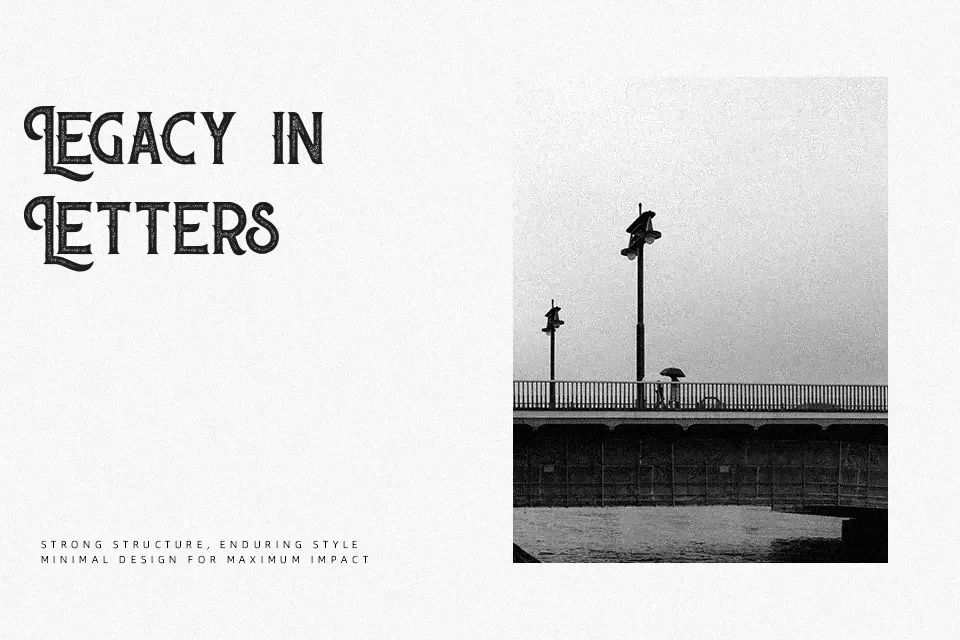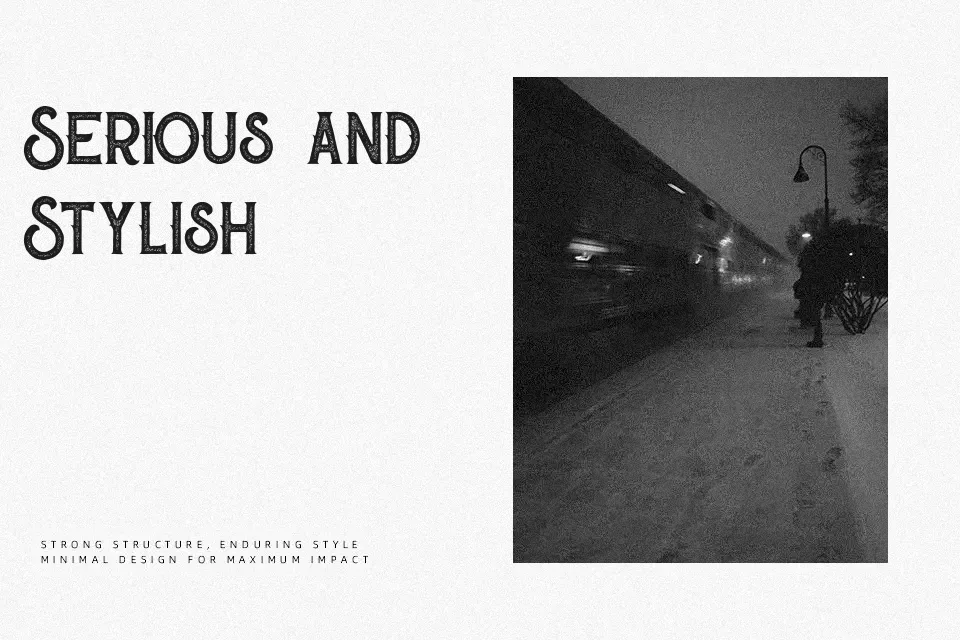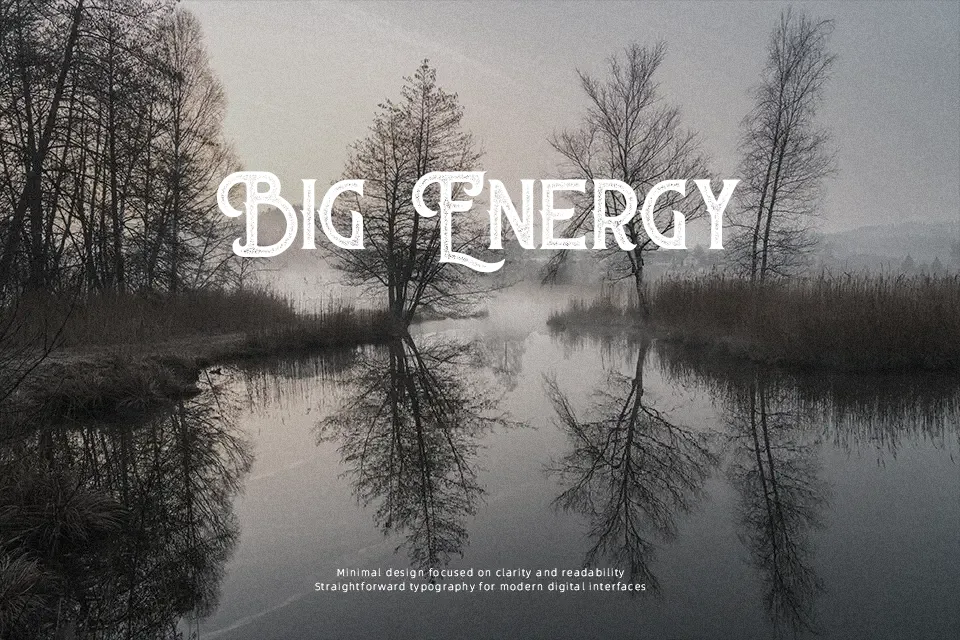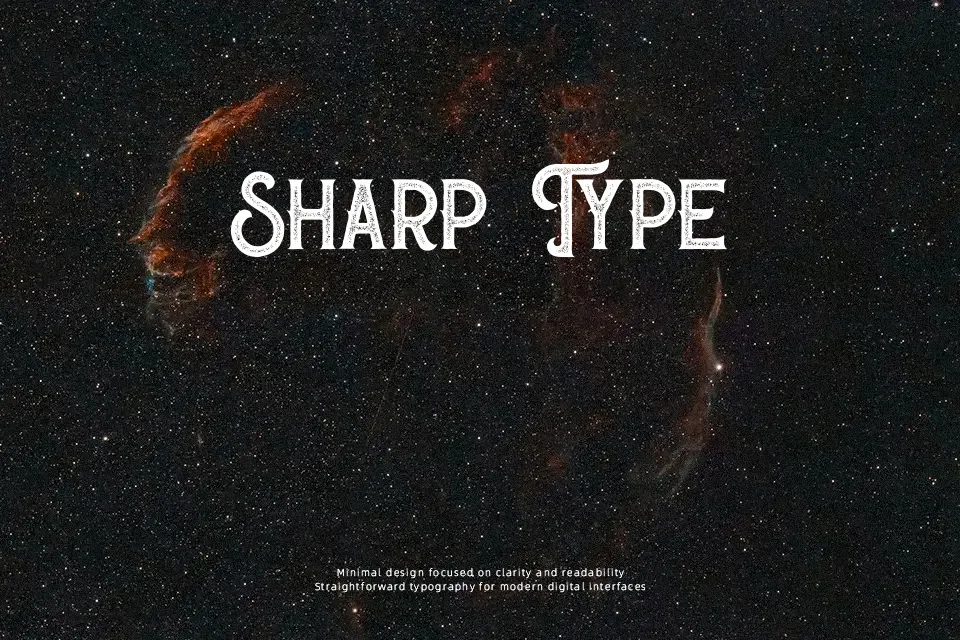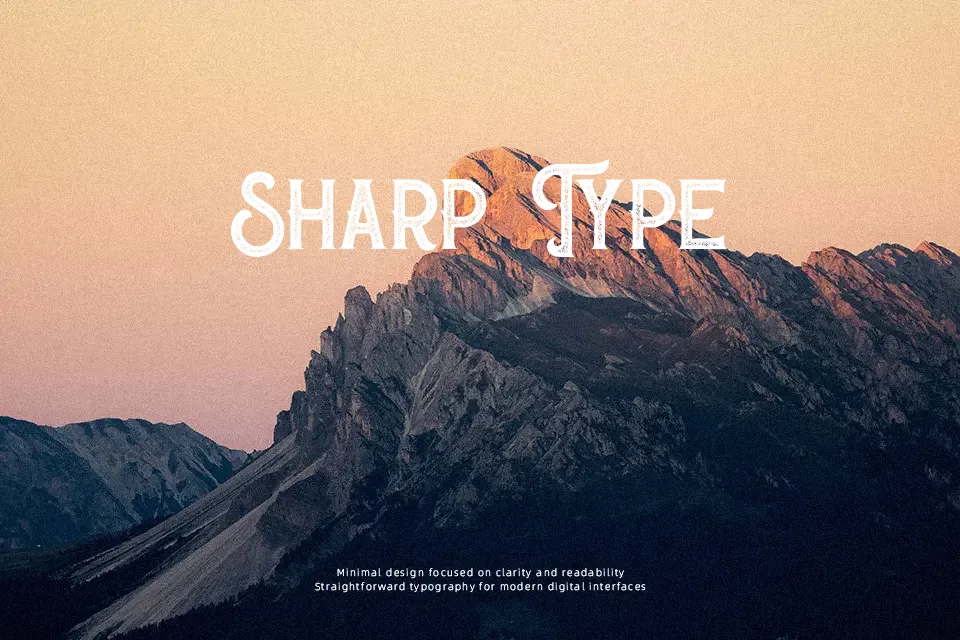
Sherlock Press Font
Sherlock Press Font is a vintage display typeface characterized by ornamental spurred serifs and an eroded, stamp-like letterpress texture. Heavy stroke weights paired with moderate contrast give each glyph a sturdy, commanding presence across large-format layouts. The letterforms feature generous character widths and comfortable spacing, ensuring strong legibility across short titles, retro badge logos, and craft product labels. While the weathered aesthetic adds authentic historic charm to poster headlines, the distressed detailing causes smaller text to lose definition rapidly. Consequently, the font is less suitable for continuous body paragraphs or dense interface elements where clean, uninterrupted outlines are essential.
Best For: vintage packaging,craft beer labels,retro poster headlines,apparel graphics
Not Ideal For: continuous body paragraphs,mobile interface text,small legal disclaimers,dense editorial layouts